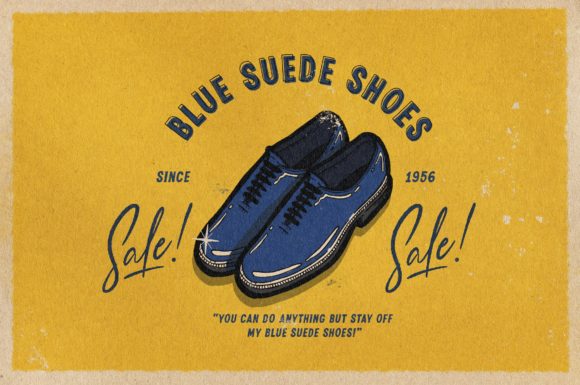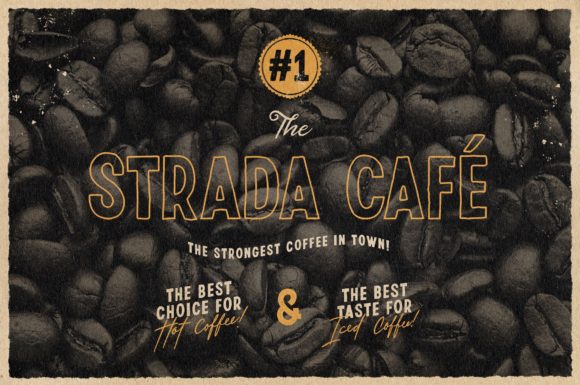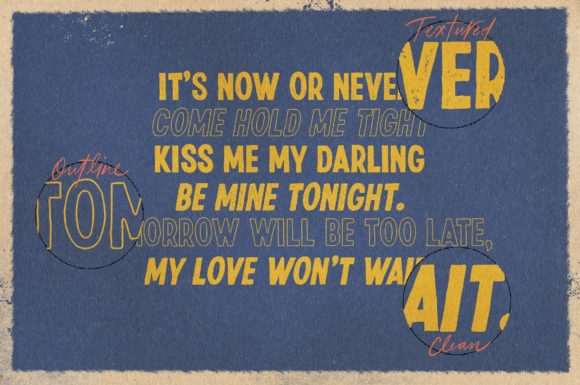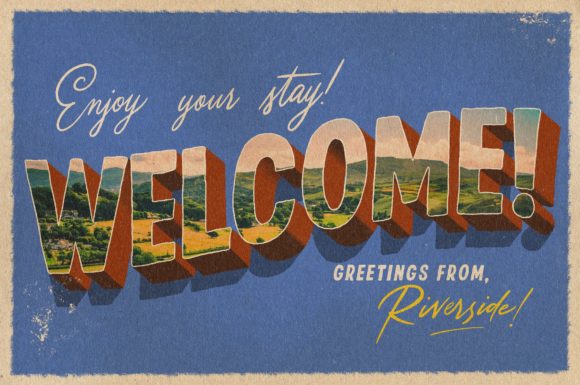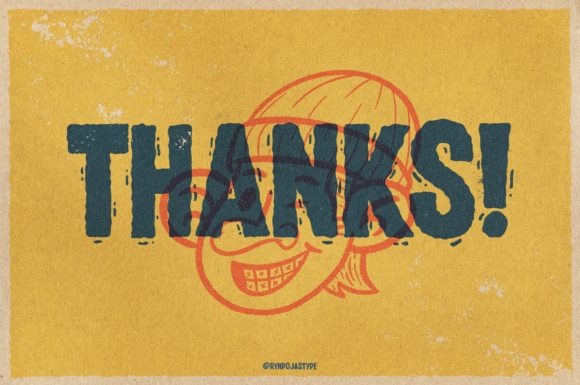
Introduction to Riverside Font
Riverside is an elegant and casual handwritten font with an incredibly friendly feel.
| 👤 Author | Ryn Pojas |
It will look particularly adept when used in logos, branding, packaging design, and much more This masterfully designed font is a true must-have.
Key Features of Riverside Font
Why Choose Riverside Font?
Riverside Font offers exceptional quality and versatility, making it a valuable addition to your design toolkit. Whether you’re creating for personal projects or commercial use, Riverside Font delivers professional results.